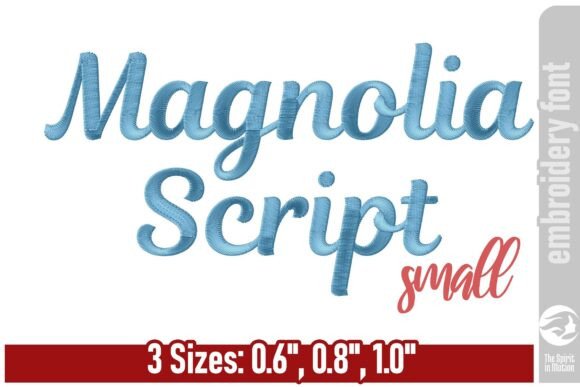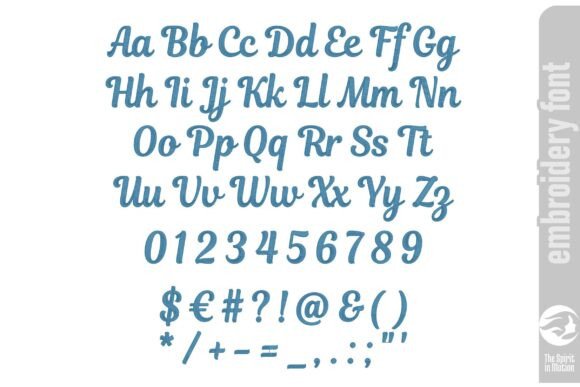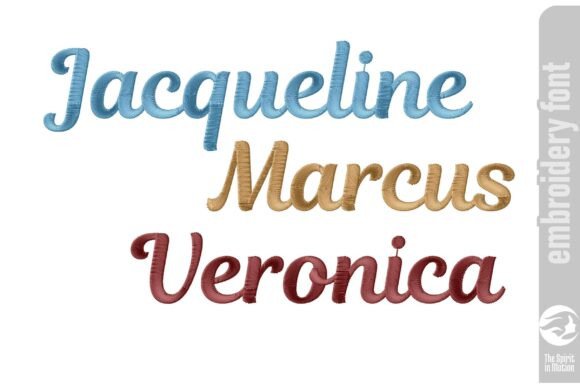
Magnolia Script Embroidery Font – Small
Magnolia Script is a graceful, flowing script embroidery font perfect for adding an elegant touch to your projects. With its smooth connections and soft curves, it’s ideal for names, monograms, wedding accents, baby items, and personalized gifts. Carefully digitized for clean stitch-outs and consistent results, this stylish font brings a modern calligraphy feel to machine embroidery.